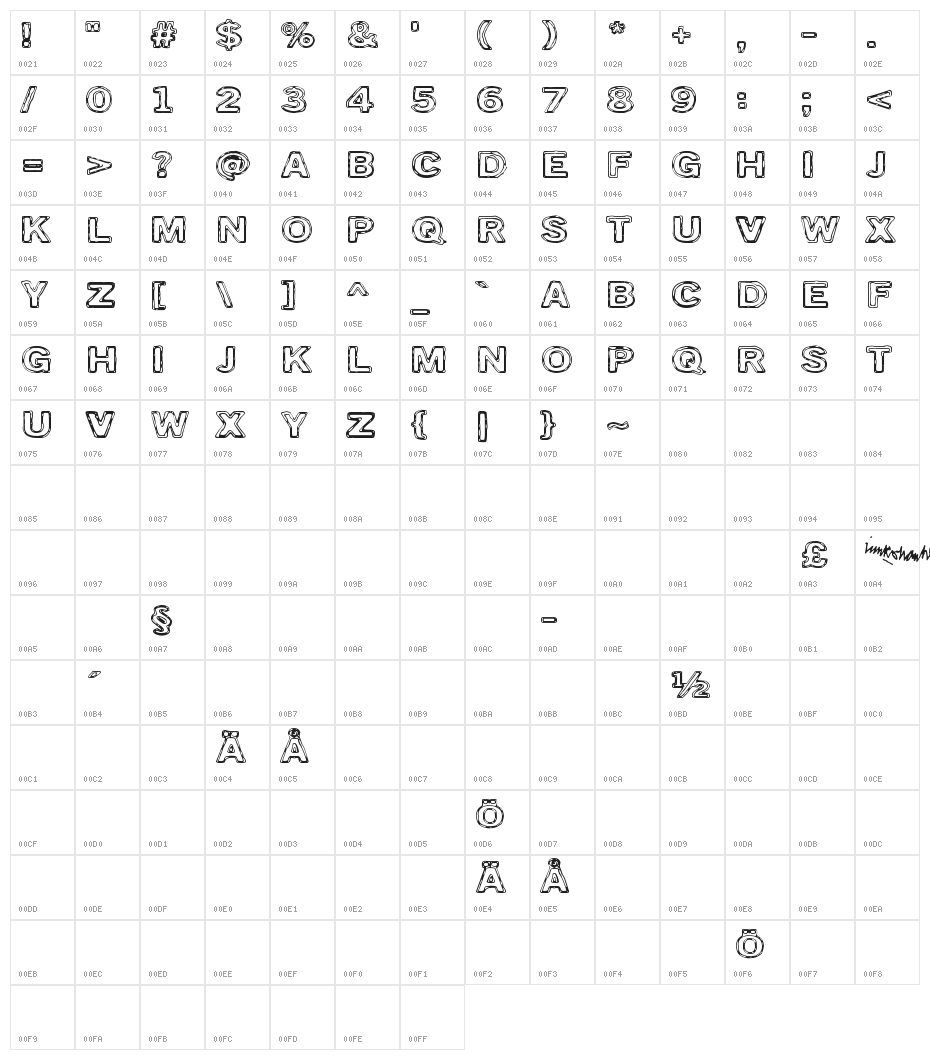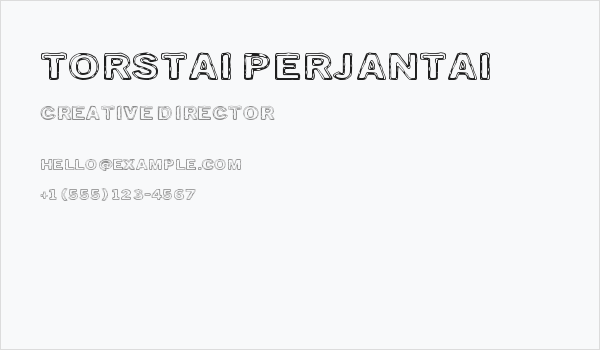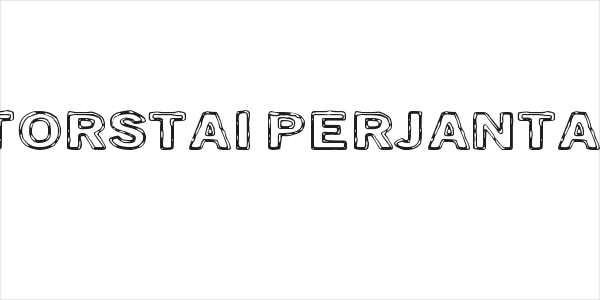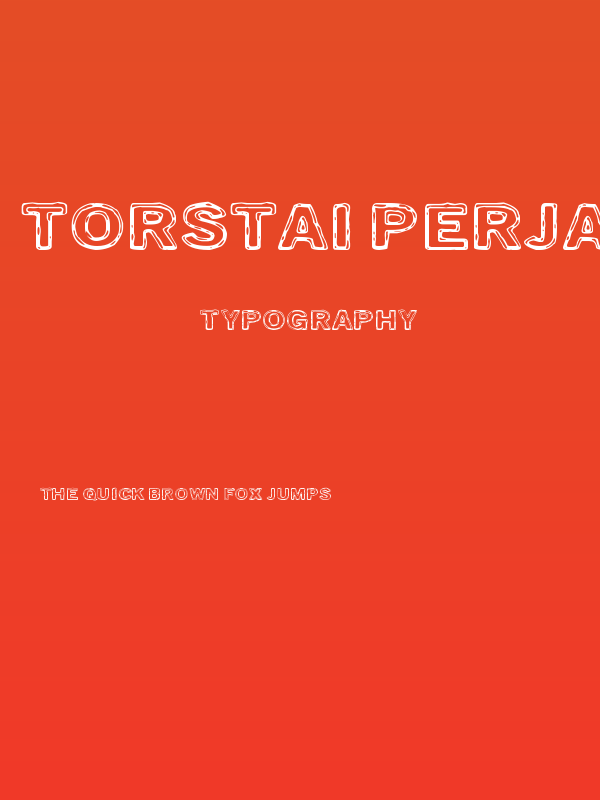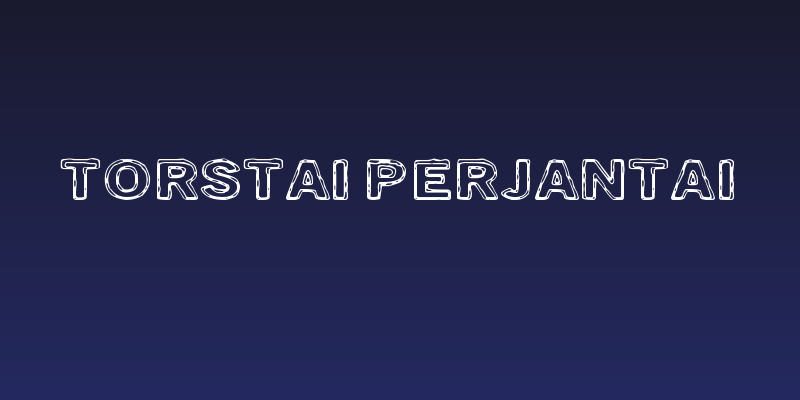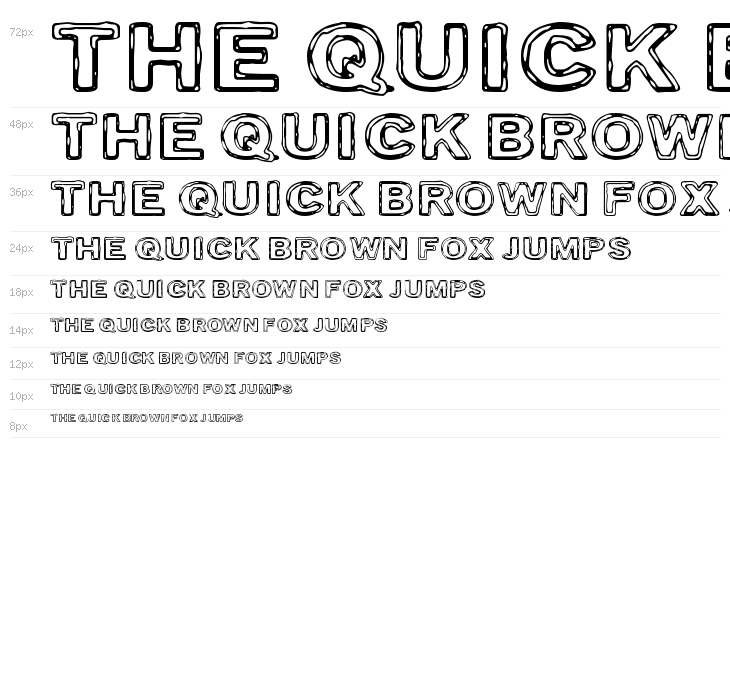
Torstai perjantai Font
Torstai perjantai Description
This font features a bold, outlined style with a playful and artistic touch. Each character is defined by a thick outer line that creates a hollow effect, giving it a unique and eye-catching appearance. The letters are uppercase, with a consistent height and width, maintaining a uniform look across the alphabet. The numbers and special characters follow the same design principle, ensuring cohesion throughout. This font's distinct style makes it suitable for creative projects where a bold statement is desired.
| Proposed Projects | Ideal for posters, logos, and creative branding projects that require a standout, artistic font. |